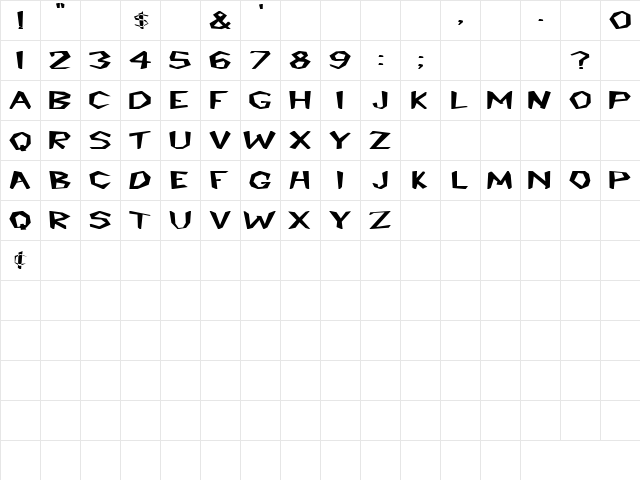
Jim Dandy 3 Bold Font Preview
Jim Dandy 3 Bold
Jim Dandy 3 Bold Font Details
Design Context for Jim Dandy 3 Typeface
Jim Dandy 3 is a composed and adaptable typeface that performs quietly and consistently across a wide range of design contexts. Its bold stroke weight gives it real presence on the page.
Pro Tip: Pair Jim Dandy 3 with a font of contrasting weight or personality to build a more expressive typographic hierarchy.